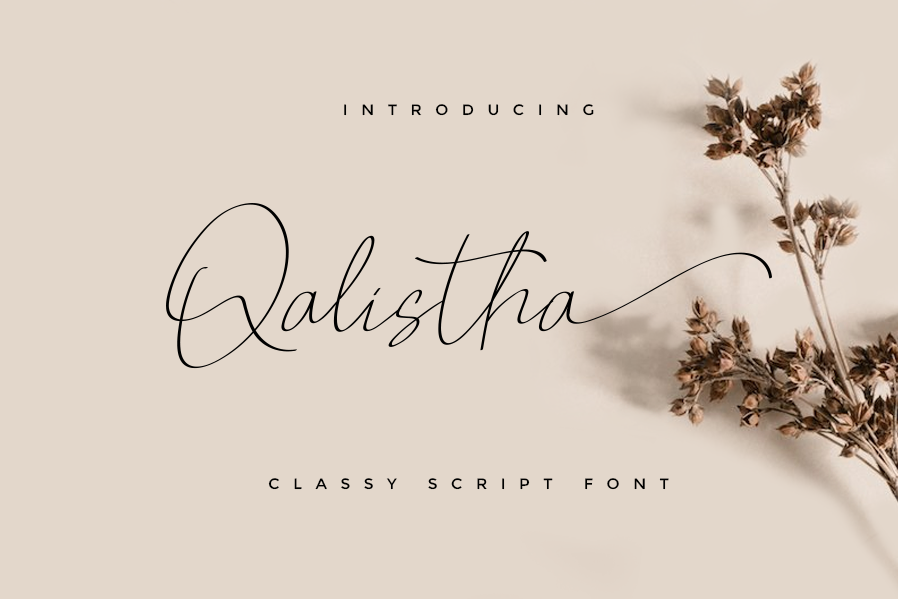
Qalistha
Qalistha is a classy script font and we keep this font looks elegant, classy, readable, stylish, catchy and easy to use. Qalistha is the great choice for watermark on photography, signature or signature logo design, quotes, album cover, business card, and many other design project. Qalistha is here to make your work to high level!!!